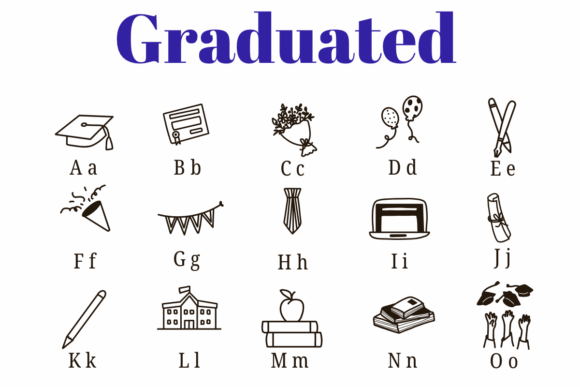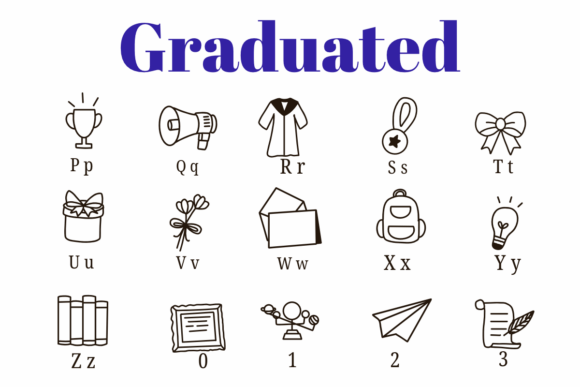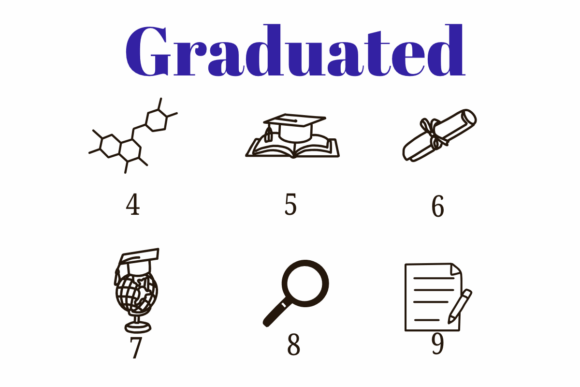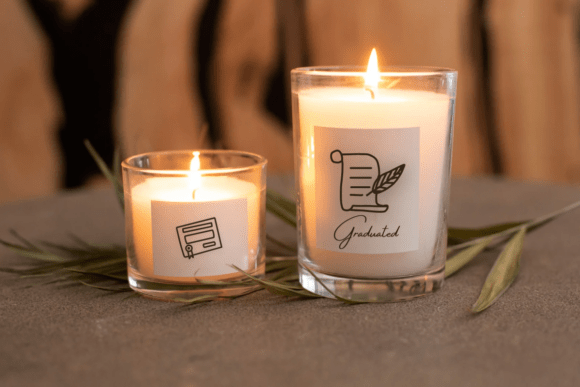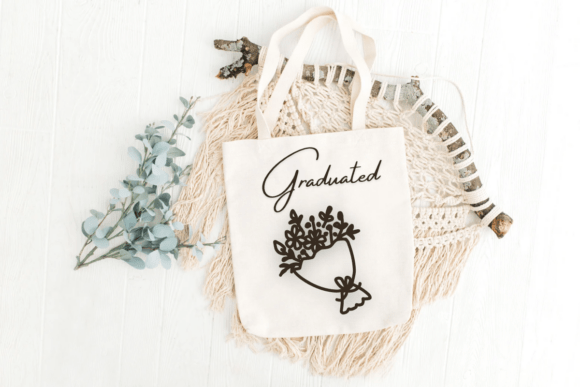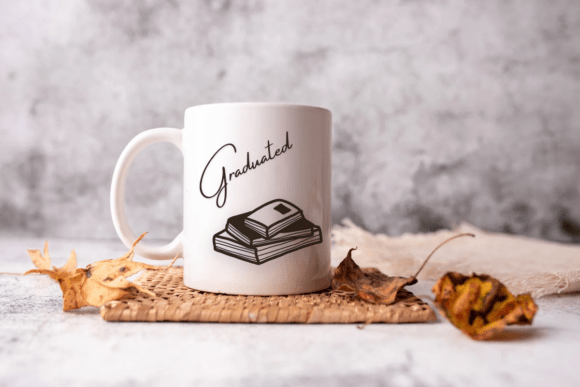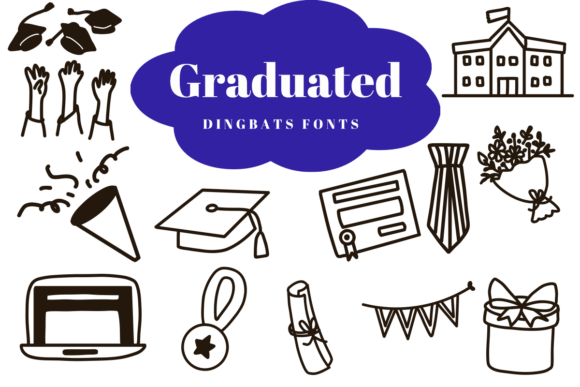
Introducing Graduated Font: Elevate Your Creative Projects with a Unique Sketch Style
Are you a designer, crafter, or DIY enthusiast looking for a font that can add a touch of personality to your creative projects? Look no further than Graduated, a dingbats font with a theme that features a charming sketch style. This versatile font is perfect for a wide range of applications, from wedding invitations and decorations to logos, crafts, and more.
What is Graduated Font?
Graduated is a dingbats font that boasts a distinctive sketch style, making it an excellent choice for those who want to add a personal touch to their designs. The font features a unique, hand-drawn aesthetic that gives it a warm and inviting feel. With Graduated, you can create stunning visual content that stands out from the crowd.
Key Features of Graduated Font
- Sketch Style: Graduated font features a charming sketch style that adds a touch of personality to your designs.
- Dingbats Theme: The font is designed with a dingbats theme, making it perfect for creating decorative and eye-catching content.
- Versatile: Graduated font can be used for a wide range of applications, from wedding invitations and decorations to logos, crafts, and more.
Creative Ways to Use Graduated Font
Graduated font is an incredibly versatile font that can be used in a variety of creative projects. Here are some ideas to get you started:
- Wedding Invitations: Use Graduated font to create beautiful and unique wedding invitations that set the tone for your special day.
- DIY Projects: Add a personal touch to your DIY projects, such as scrapbooking, card making, and crafting, with Graduated font.
- Decorations: Use Graduated font to create stunning decorations, such as wall art, banners, and signs, that add a touch of personality to any room.
- Logos: Create a unique and memorable logo for your business or brand using Graduated font.
- Crafts: Use Graduated font to create handmade crafts, such as jewelry, candles, and soap, that feature a personal touch.
Benefits of Using Graduated Font
There are many benefits to using Graduated font in your creative projects. Here are a few:
- Unique Style: Graduated font features a unique sketch style that sets it apart from other fonts.
- Versatility: The font can be used for a wide range of applications, making it a great addition to any designer’s toolkit.
- Customization: The font can be customized to fit your specific needs, allowing you to create unique and personalized designs.
Tips for Using Graduated Font
Here are a few tips for using Graduated font in your creative projects:
- Experiment with Colors: Graduated font looks great in a variety of colors, so don’t be afraid to experiment and find the perfect hue for your design.
- Mix and Match: Combine Graduated font with other fonts and design elements to create a unique and visually appealing design.
- Keep it Simple: Don’t overcomplicate your design – keep it simple and let Graduated font be the star of the show.
Graduated font is a unique and versatile dingbats font that features a charming sketch style. With its wide range of applications and ease of use, it’s an excellent choice for designers, crafters, and DIY enthusiasts looking to add a personal touch to their creative projects. Whether you’re creating wedding invitations, decorations, logos, or crafts, Graduated font is sure to elevate your designs and help you stand out from the crowd.